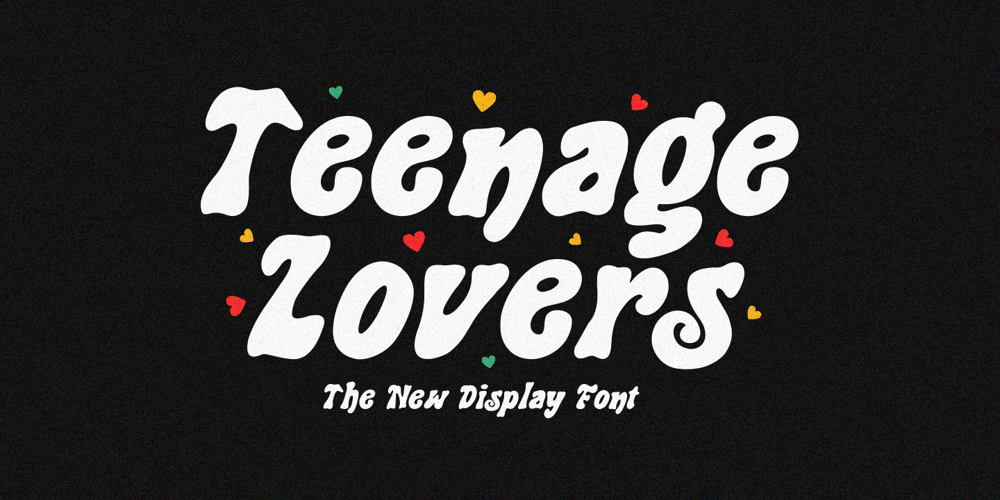
Teenage Lovers Font Family was designed by Miftahul Habib and published by Teenage Foundry. Teenage Lovers contains 1 styles and family package options. Introducing by Teenage Foundry!Teenage Lovers is a retro serif display font that channels the nostalgia and romanticism of yesteryears. With its bold and distinct serifs, this font exudes a sense of vintage charm and sophistication.Whether you’re designing album covers, posters, or branding materials, this retro serif font will add a touch of timeless elegance and captivate the hearts of teenage dreamers and lovers of classic aestheticsFeatures: Uppercase, Lowercase, Numeral, Ligatures, Punctuation & Multilingual.Multilingual contained: Afrikaans, Albanian, Asu, Basque, Bemba, Bena, Breton, Catalan, Chiga, Cornish, Danish, Dutch, English, Estonian, Filipino, Finnish, French, Friulian, Galician, German, Gusii, Indonesian, Irish, Italian, Kabuverdianu, Kalenjin, Kinyarwanda, Luo, Luxembourgish, Luyia, Machame, Makhuwa-Meetto, Makonde, Malagasy, Manx, Morisyen, North Ndebele, Norwegian Bokmål, Norwegian Nynorsk, Nyankole, Oromo, Portuguese, Quechua, Romansh, Rombo, Rundi, Rwa, Samburu, Sango, Sangu, Scottish Gaelic, Sena, Shambala, Shona, Soga, Somali, Spanish, Swahili, Swedish, Swiss German, Taita, Teso, Uzbek (Latin), Volapük, Vunjo, ZuluFor any questions please contact me 🙂Thanks!